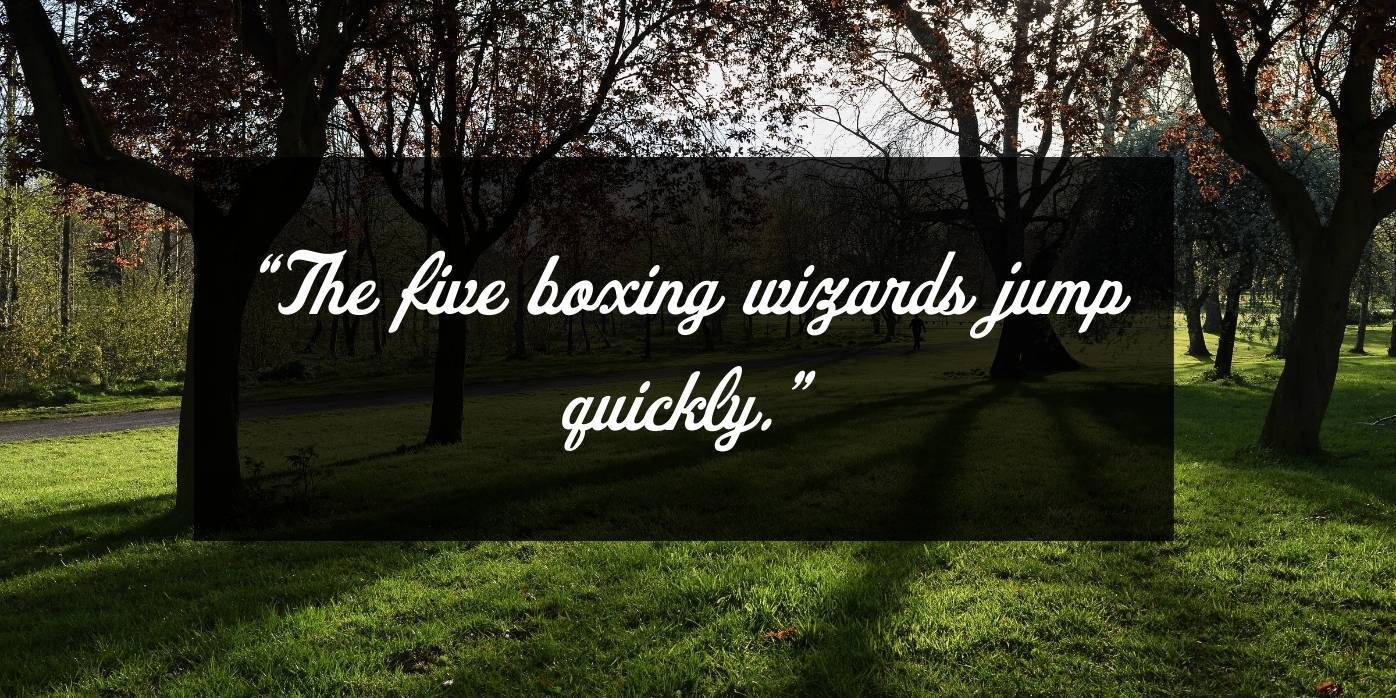
Fenway Park Jf font
Here, we present a new gorgeous typeface that is known by the name Fenway Park Jf font. This marvelous typeface belongs to the Script typeface. It was developed and published by Macromedia Fontographer. It is well specified by the CSS.
This awesome typeface has more than 1oo amazing and classic character. Some common characters are Uppercase, Lowercase, icons, numerals, and so on. Fenway Park Jf Typeface has a soft and natural look. This typeface has different Italic Swashes.